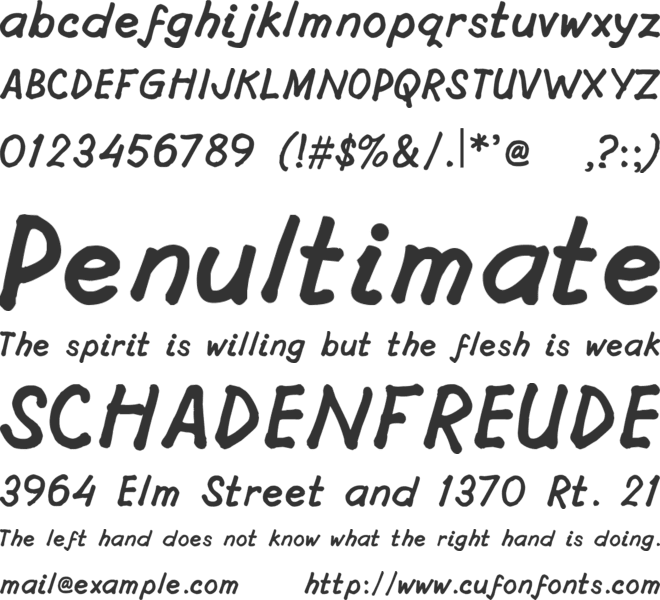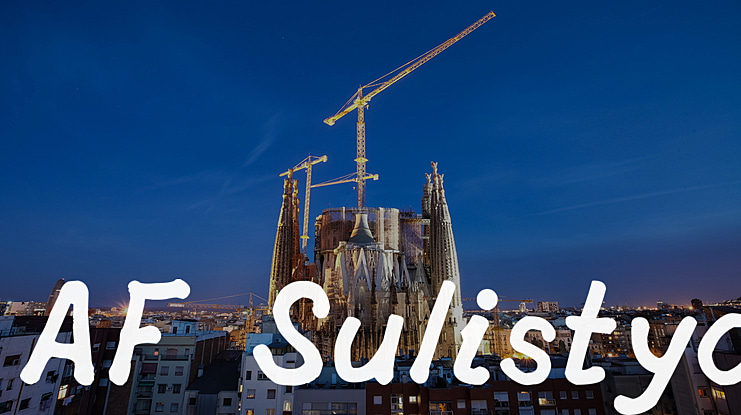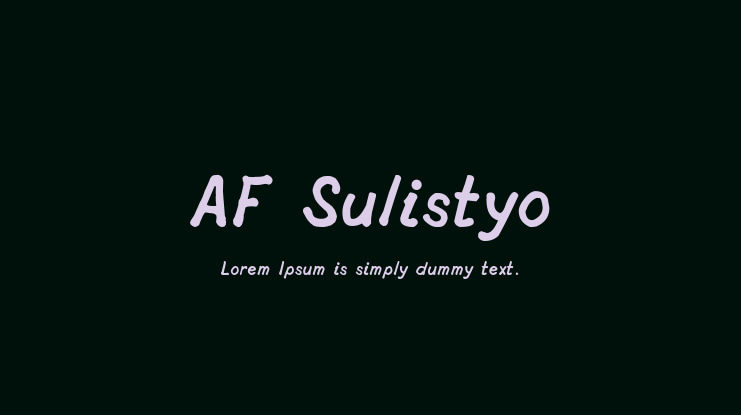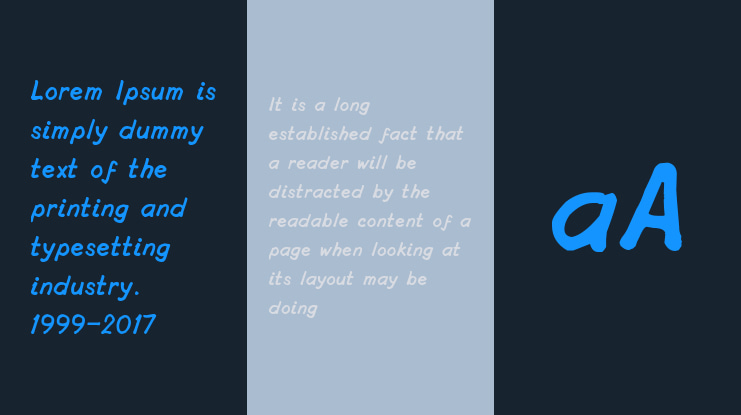
AF Sulistyo Font
Aloysius Fransiskus Sulistyo is my oldest brother.
Born in 1950. Picture taken 2014.
He lives in Sukorejo, Kendal, Central Java, Indonesia
This font is his handwriten.
I digitalized it.